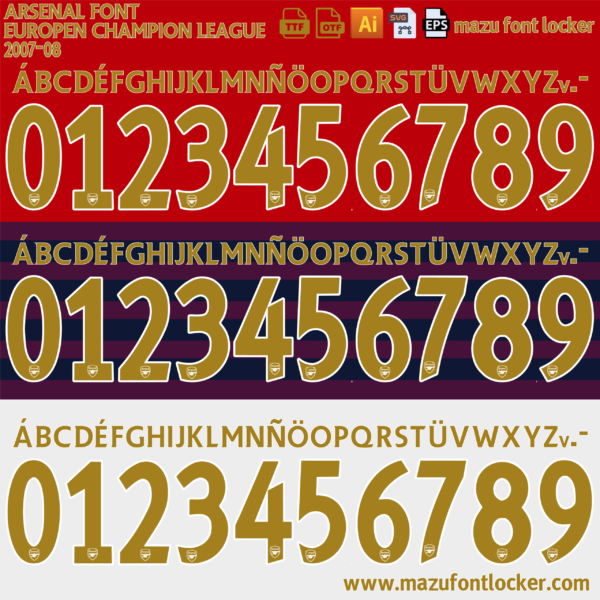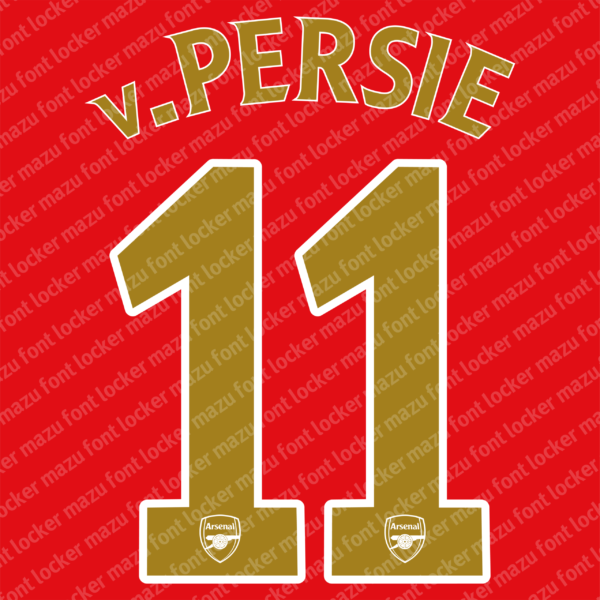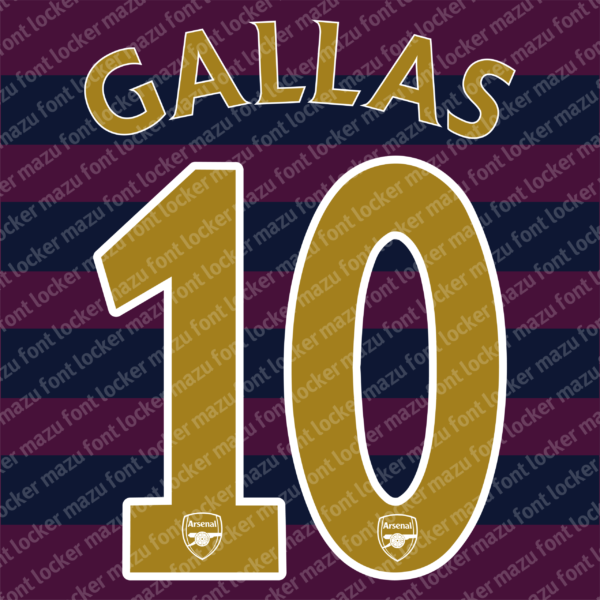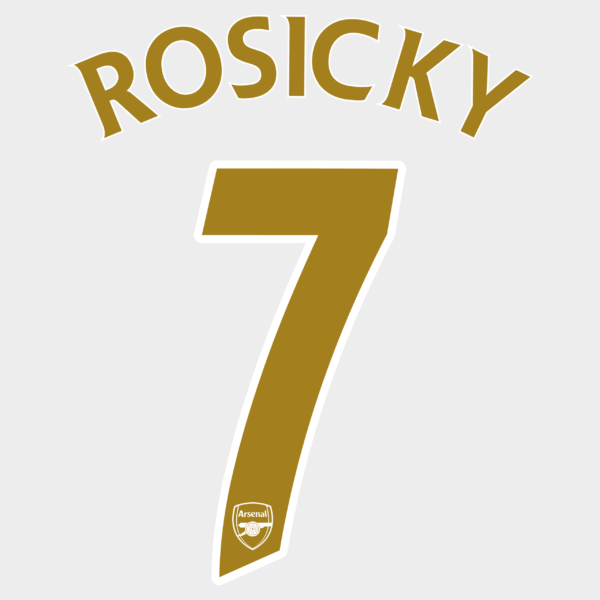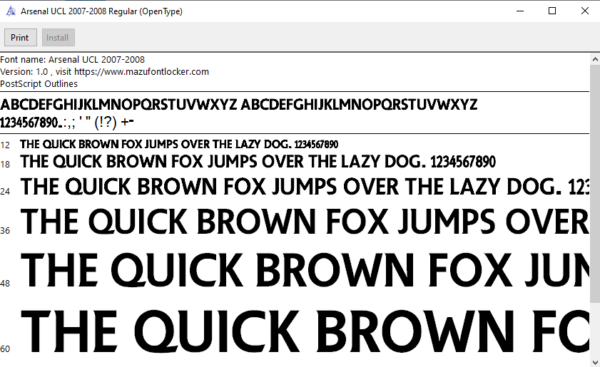
Arsenal 2007-08 font, names and numbers, fully editable VECTOR file for customisation.
Complete design with the Arsenal 2007-08 numbering and lettering for the European Champion League Match.